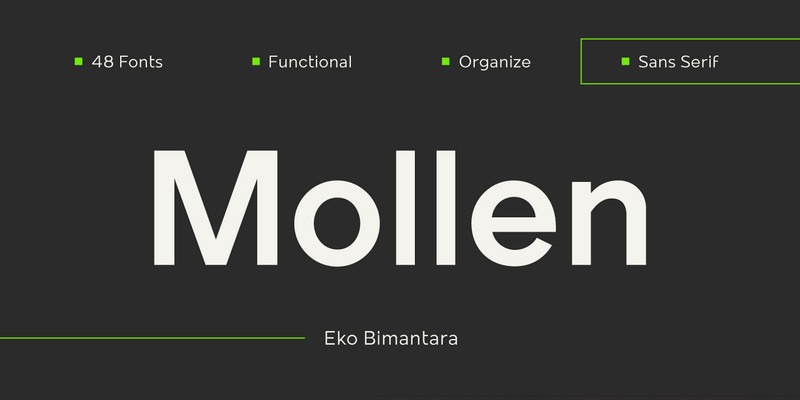
Meet Mollen: a sans serif font family designed to be functional. It delivers 48 font variations with weights ranging from thin to extra bolds that look great for all kinds of editorial pieces, product presenations, display, posters, etc
Every glyph was shaped with geometrical form for a specific visual structure: simple and clean form with low contrast stroke, rounded 'o' in the normal width, mix diagonal and straight cuts on terminals and finials. Low capitals, with flat top and low descenders. With this personality, Mollen meant be fit for modern, contemporary and technological nuance.
With weights from thin to extra bold, 3 different widths ranging from condensed, narrow & regular, and matching true italics, it provides a wide range of uses to create completely unique visual compositions without losing the basic type style you are pursuing. It also contains 425 glyphs & several opentype features.
Supported Languages: Western Europe, Central/Eastern Europe, Baltic, Turkish & Romanian.
- 48 font variations
- Weights from thin to extra bold
- Matching narrow fonts & true italics
- Language support: Western, Central & Eastern Europe, Baltic, Turkish & Romanian.